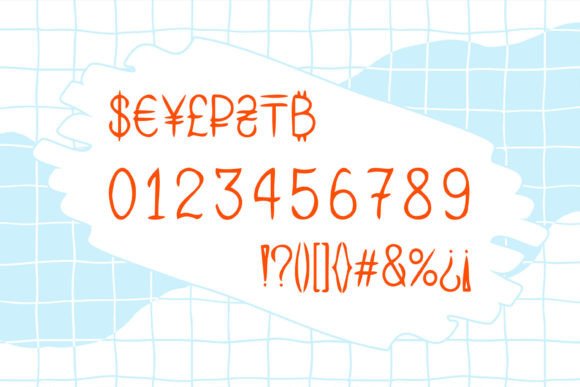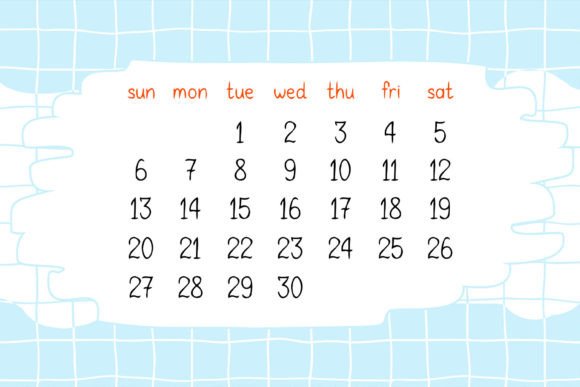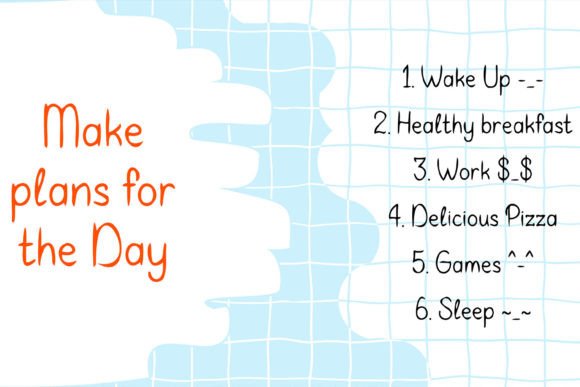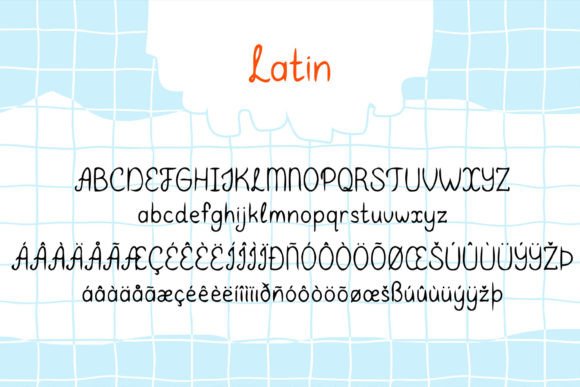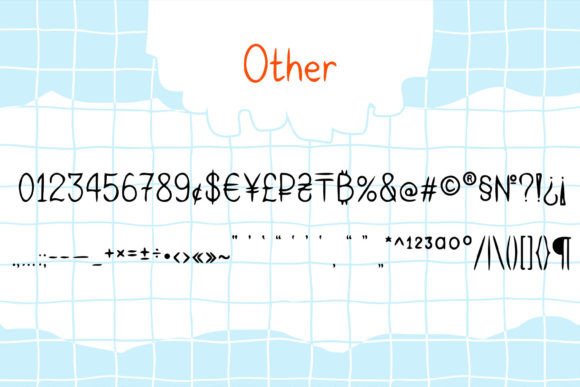
Introduction to Qundeasy Cf Font
Qundeasy is a sloppy and cute handwritten font.
First of all, it is suitable for handmade style design You can use this lovely font to create interesting logos, posters, banners, social media creatives, postcards, and greetings with this font.
Key Features of Qundeasy Cf Font